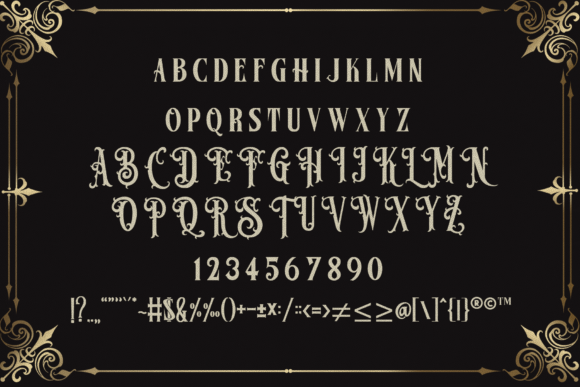
Black Fellas Font
Create gorgeous and timeless designs with Black Fellas, an interesting and unique blackletter font.
Fall in love with its incredibly stylish look and use it for logos, quotes, invitations, business cards, presentations and more